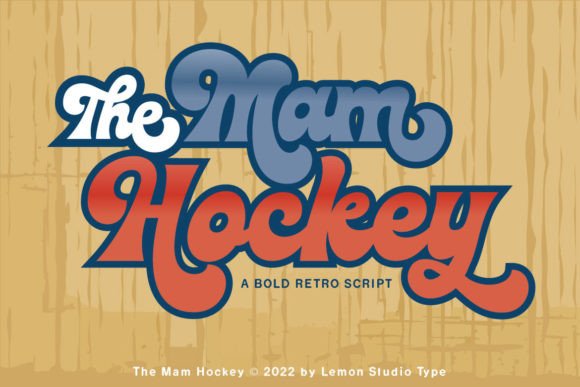
Welcome to The Mam Hockey Font collection, the perfect script font for all your retro design needs! Created by WildaKhairunnisa, this font is a bold and charming script that adds a touch of style to any project.
With its retro vibe, The Mam Hockey Font is the perfect addition to any typography, mockup, branding, wall art, street art, or heading project. Its versatility makes it a must-have font for web design, and it will surely elevate your designs to the next level.
But The Mam Hockey Font is not just for web design, it has many other important purposes that are more diverse. Whether you're creating a vintage poster, designing a logo for a retro brand, or working on any other project that requires a touch of nostalgia, The Mam Hockey Font is the perfect choice.
Not only is this font eye-catching and unique, but it also has a wide range of emotional and creative reasons why you should download it. With The Mam Hockey Font, you can bring a piece of history into your modern design projects and create a sense of nostalgia and authenticity that will captivate your audience.